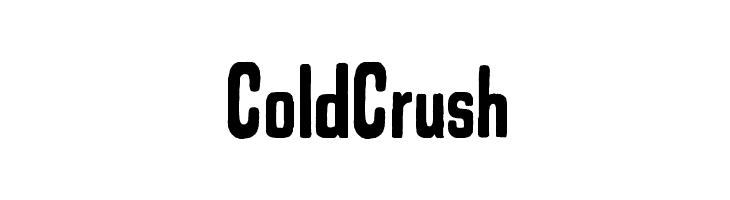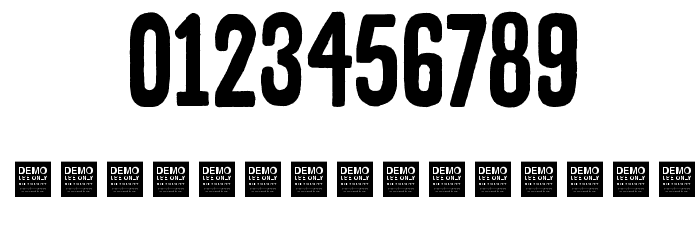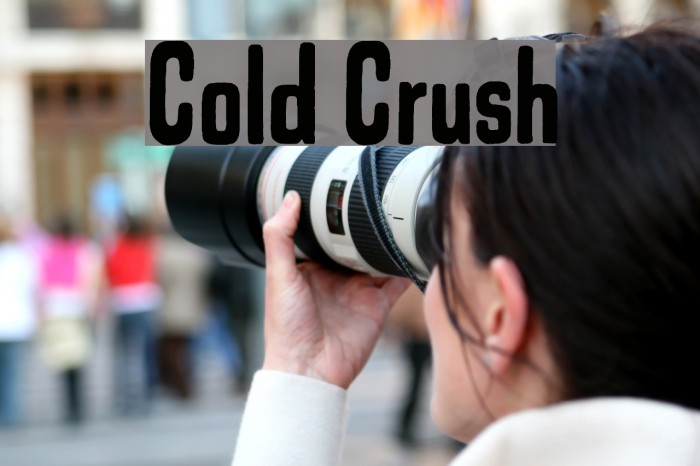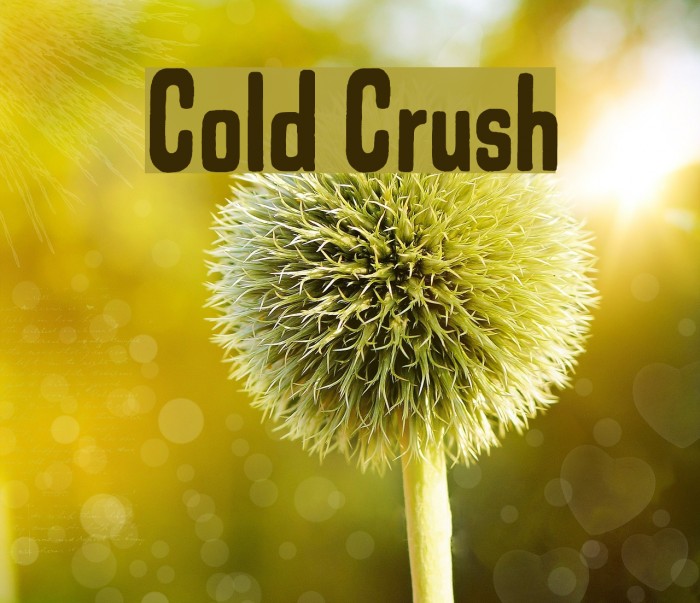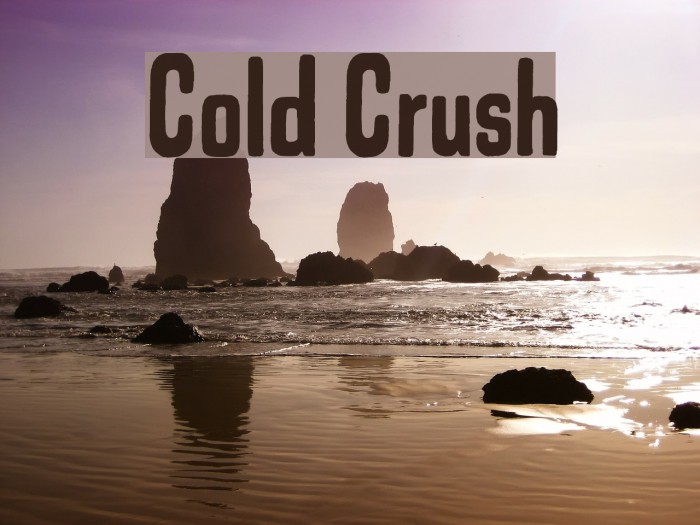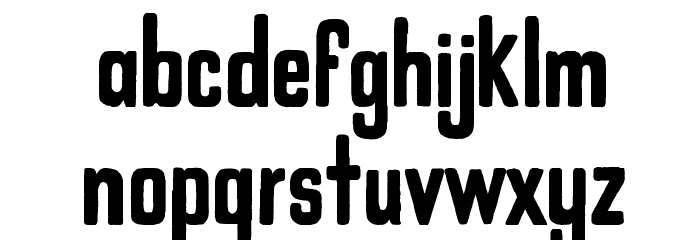
Cold Crush Font
This font features a bold and robust design with thick strokes and a slightly condensed appearance. The characters have a uniform weight, giving them a strong and impactful presence. The uppercase letters are tall and commanding, while the lowercase letters maintain a consistent style that complements the uppercase. The numerals are clear and easily readable, matching the overall boldness of the font. The special characters are designed to integrate seamlessly with the rest of the character set, maintaining the same bold and sturdy aesthetic. This font is ideal for making a statement with its strong visual impact.
A bold, robust font with thick strokes and a slightly condensed style.
• Proposed Projects: Ideal for posters, headlines, branding, and any project requiring a strong visual impact.